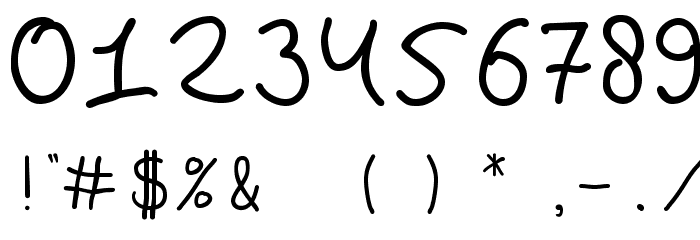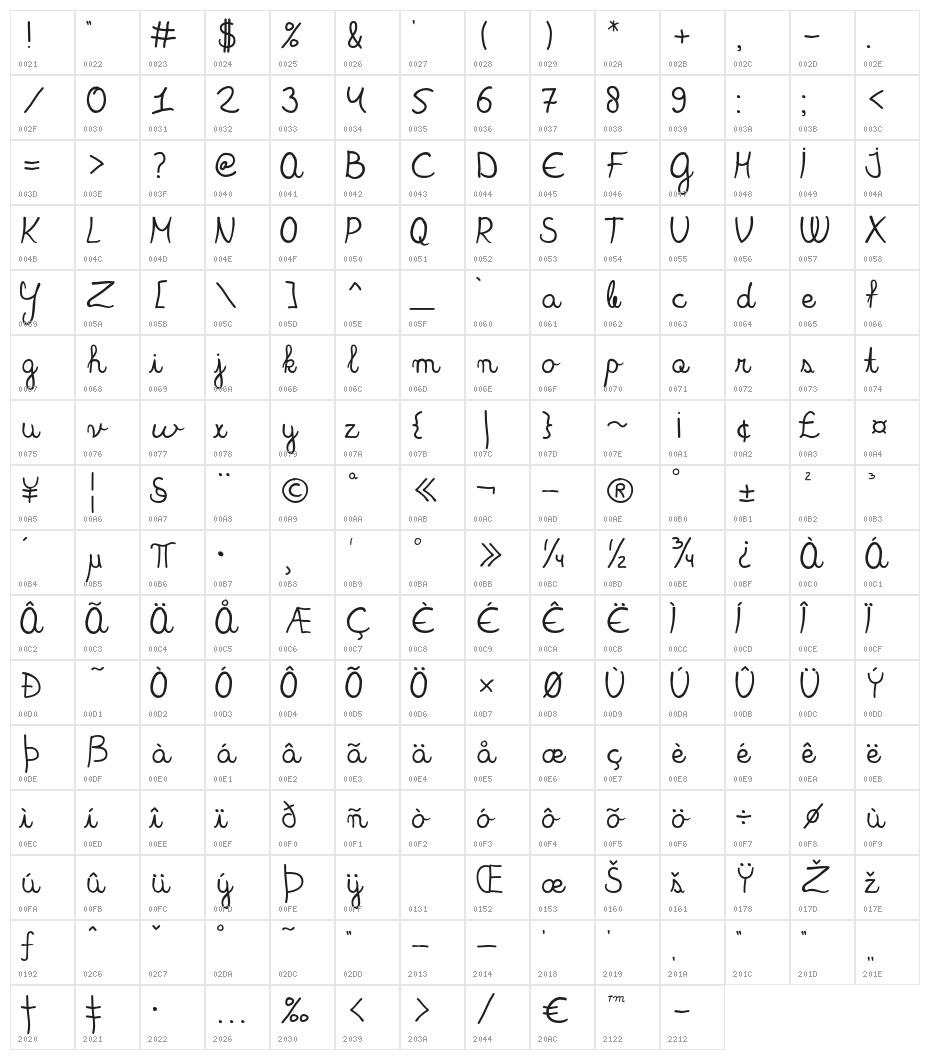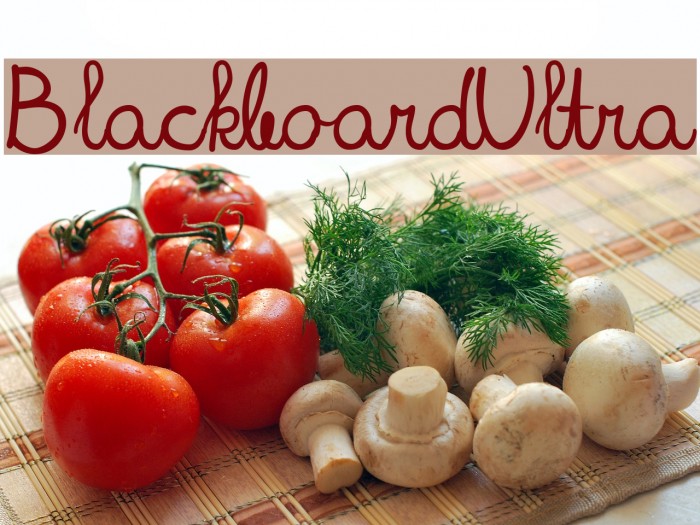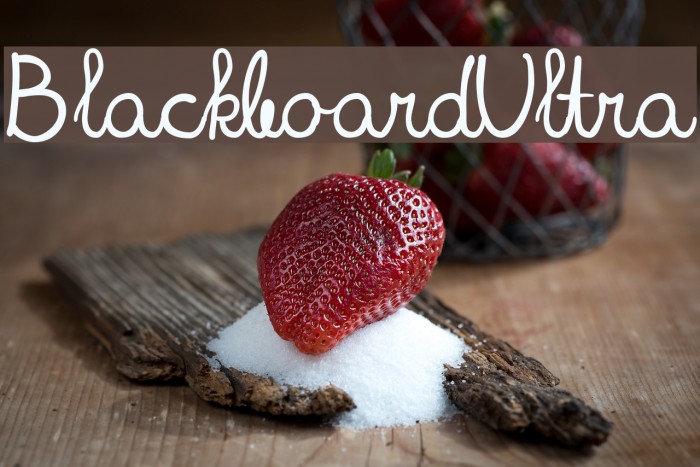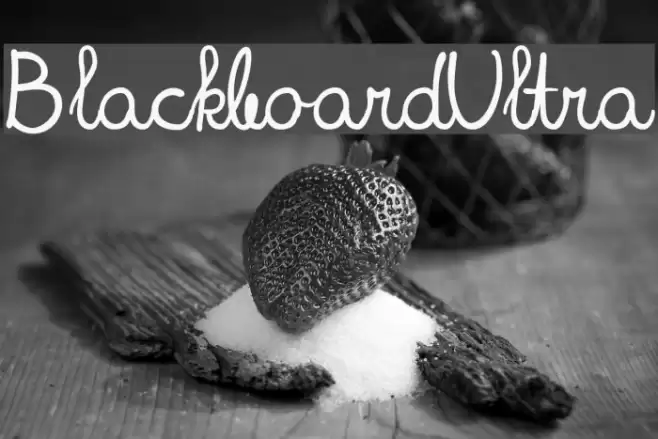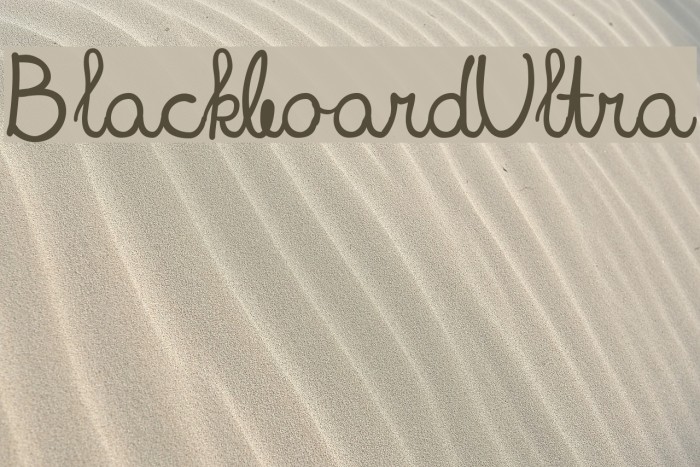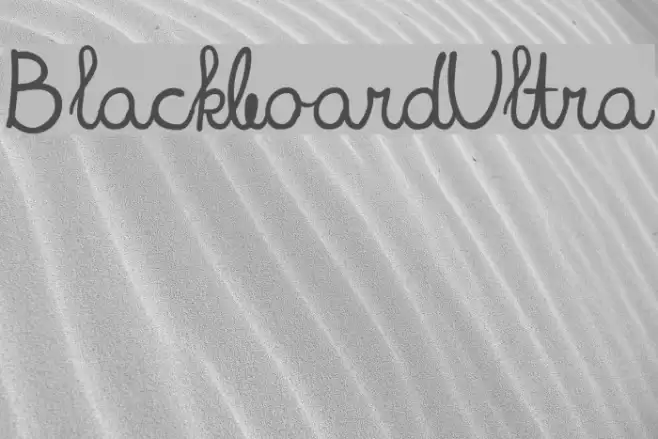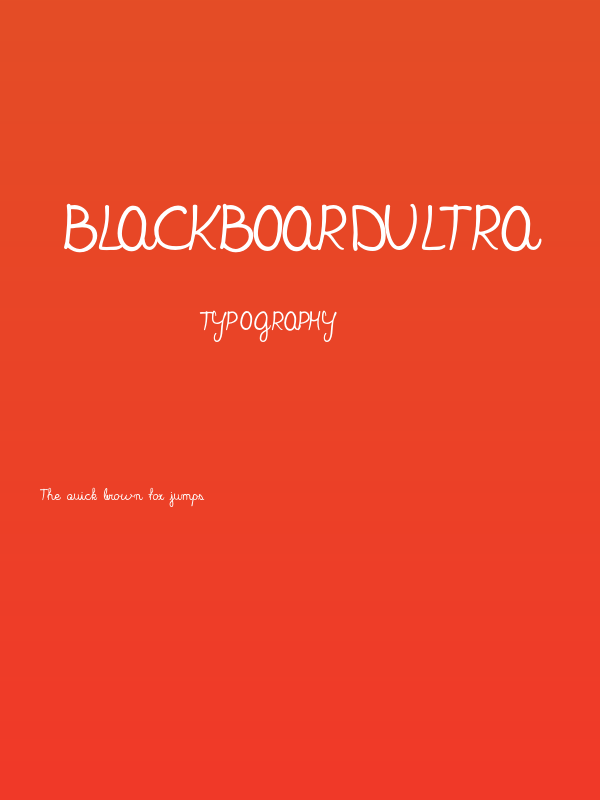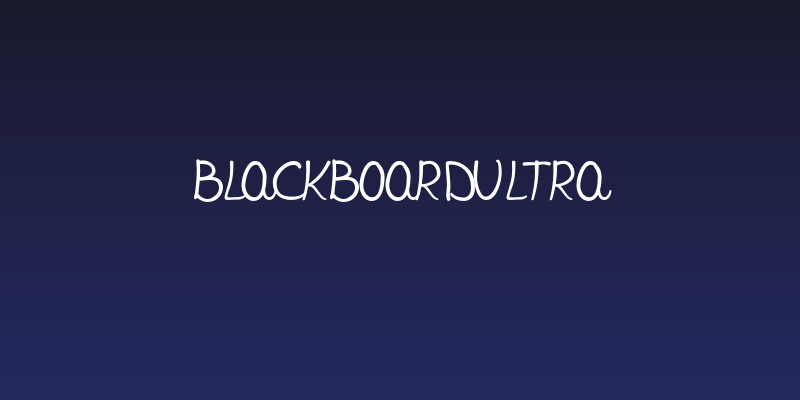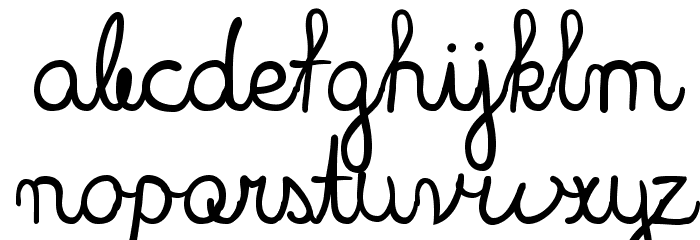
BlackboardUltra Font
BlackboardUltra Description
This font features a playful and casual handwritten style, reminiscent of chalkboard writing. The letters are rounded and slightly irregular, giving a friendly and approachable feel. The uppercase letters maintain a consistent height, while the lowercase letters have a slight slant, adding to the informal aesthetic. The numerals are clear and easy to read, matching the overall style of the alphabet. Special characters are included, maintaining the same playful and informal design. This font is ideal for projects that require a personal touch or a relaxed vibe.
| Use Case | Headlines, Informal text, Educational materials |
| Proposed Projects | Ideal for educational materials, children's books, greeting cards, and casual branding. |